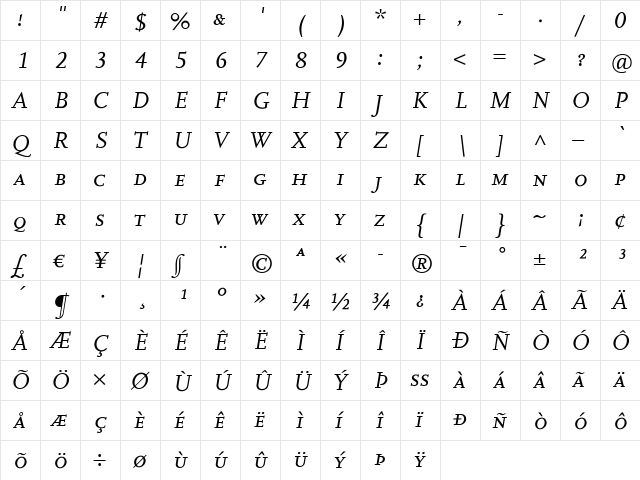
Scala Medium Italic
Design Context for Scala Typeface
Scala is a composed and adaptable typeface that performs quietly and consistently across a wide range of design contexts. The dynamic lean of this cut emphasises speed and emphasis in any layout.
Pro Tip: Try Scala for annotation and caption copy alongside an upright companion — the contrast in angle creates a dynamic but ordered typographic system.